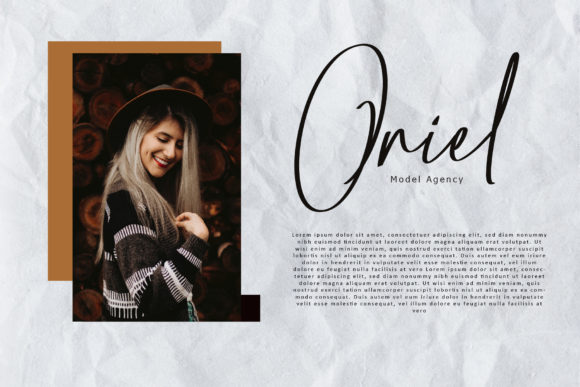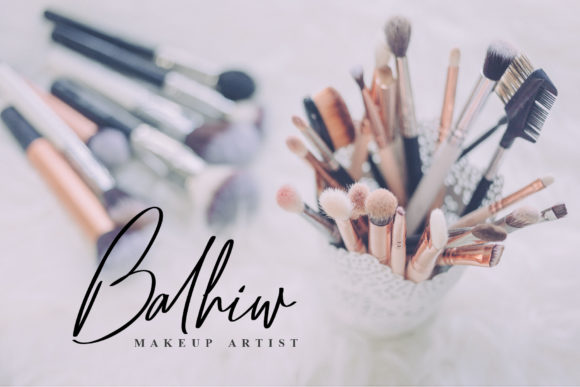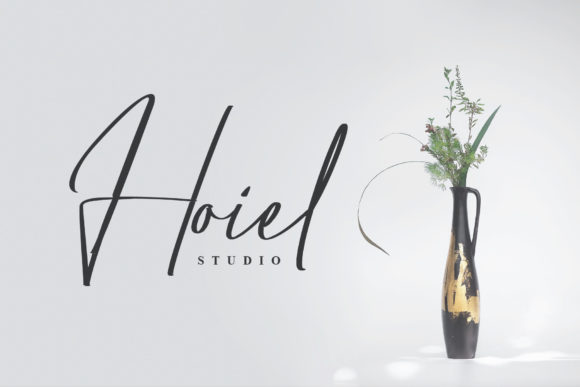
Introduction to Golfind Font
Golfind is a simple and sleek script font.
It has a clean, thin and smooth vibe and it will be a hit for any design that you want to add it to .
Golfind Font offers exceptional quality and versatility, making it a valuable addition to your design toolkit. Whether you’re creating for personal projects or commercial use, Golfind Font delivers professional results.